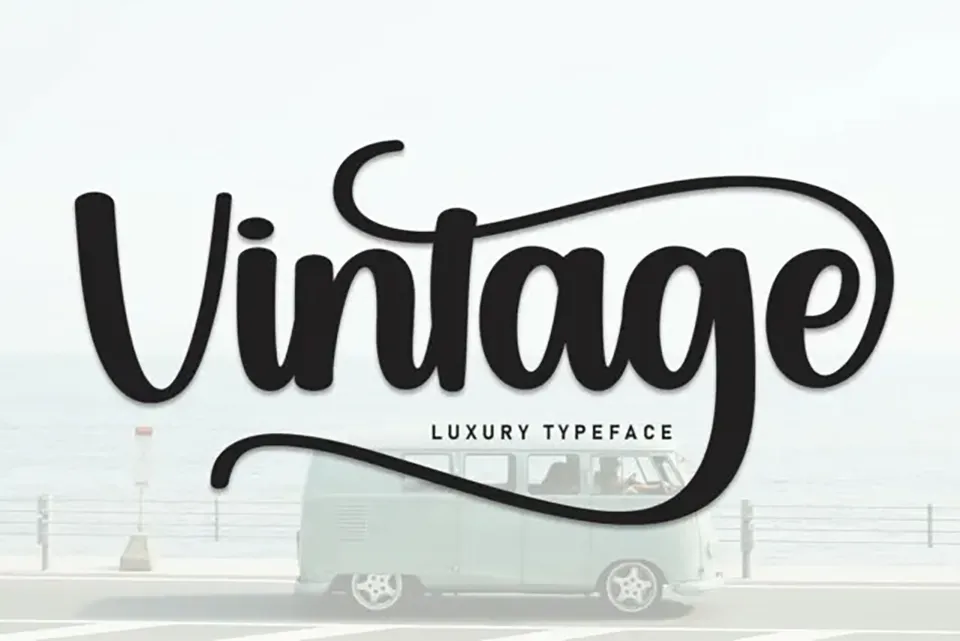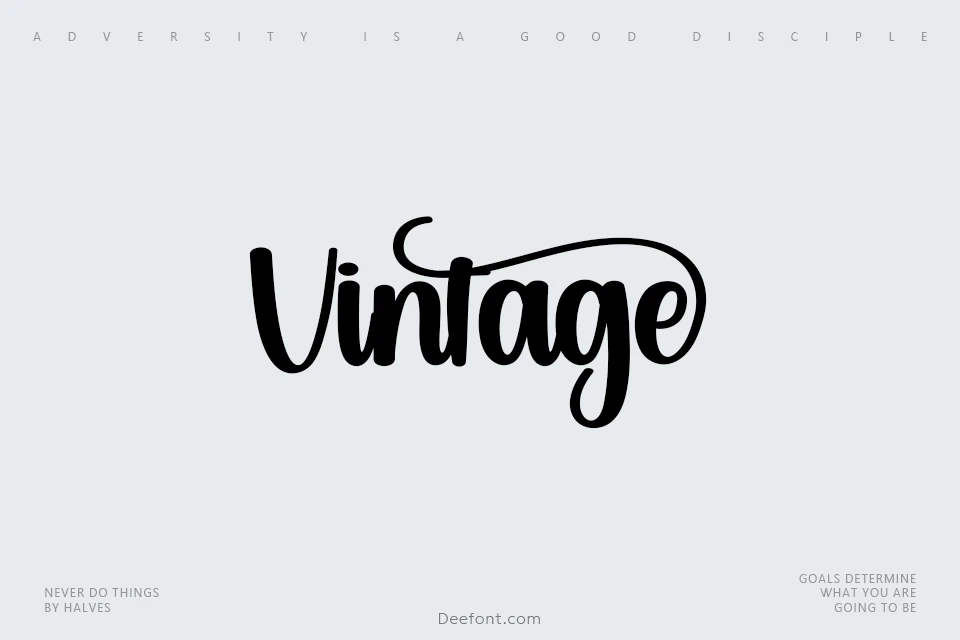
Vintage Calligraphy Font
Vintage Calligraphy is presented as a luxury script typeface, characterized by its bold, flowing letterforms. The smooth, connected strokes create an elegant yet impactful appearance, suggestive of modern calligraphy with a vintage influence. Prominent, sweeping swashes extend gracefully from letters like the ‘V’ and ‘e’, enhancing its decorative and luxurious feel. This font balances a classic calligraphic spirit with substantial weight, making it ideal for high-end branding, sophisticated logos, elegant invitations, eye-catching headlines, and designs requiring a bold, flowing script that conveys both nostalgia and modern luxury.